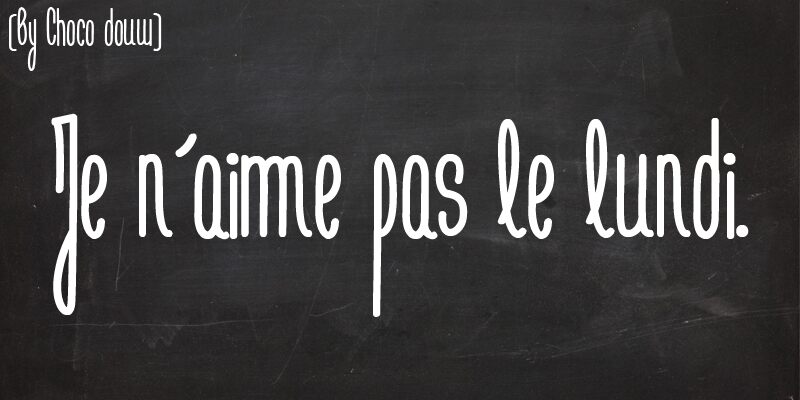
Je n’aime pas le lundi font by Qkila is a free handwritten typeface that turns moody, Monday-morning energy into something charming. Its letters are tall, skinny, and slightly wobbly, like ink penned in a rush on a café napkin, with just enough curl to feel whimsical rather than messy. The airy spacing keeps it light and legible, so even longer words keep that effortless, breezy flow.
Using Je n’aime pas le lundi font, you can give quotes, posters, journal covers, greeting cards, social graphics, and lifestyle blog headers a distinctive, slightly offbeat voice. This free font shines when used large, where its lanky lines and playful rhythm can breathe. For a clean, modern look, pair it with a simple geometric sans in smaller text sizes to ground its laid-back character.